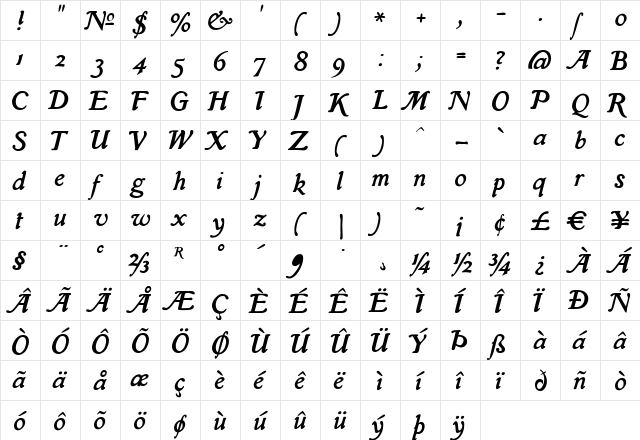
Isla Regular
| Foundry | \(c\) SUDTIPOS. Designed by Alfredo Graziani and Alejandro Paul |
Design Context for Isla Typeface
Isla is a composed and adaptable typeface that performs quietly and consistently across a wide range of design contexts.